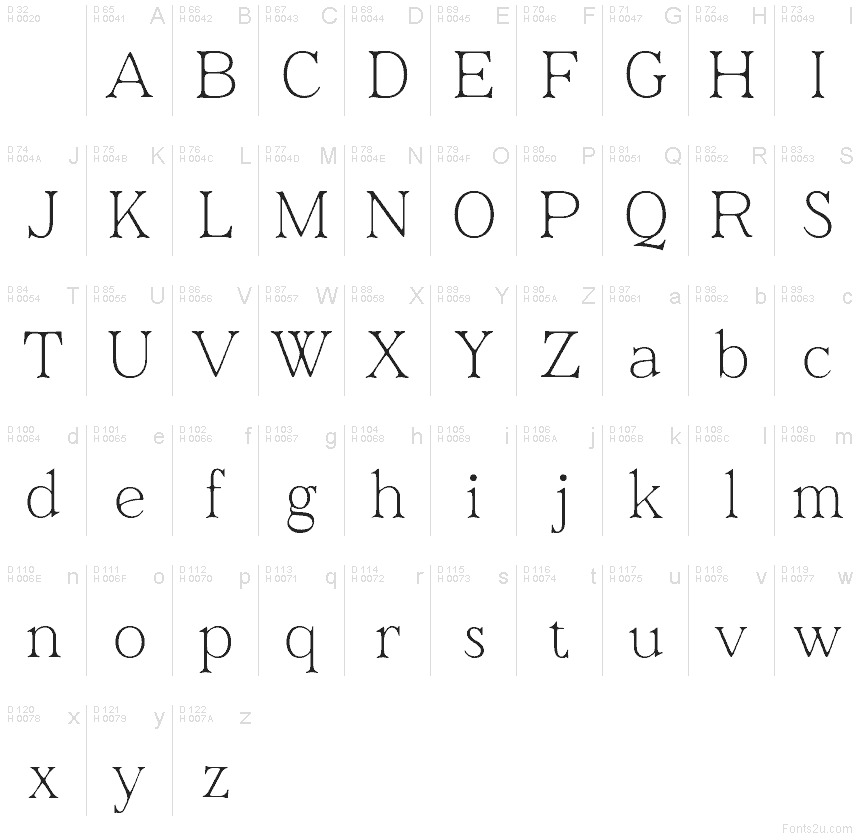
CSRichieDrawn-Regular Demo
CS Richie font by Craft Supply Co. is the ideal choice for mixing refined and classic elegance of serif typefaces with a handrawn, more personal touch. It has a delicate aesthetic that mixes slim strokes and subtle serifs with textured hand drawn lines and circular corners.
Use this free serif font in branding, magazines, invitations cards, books, catalogs or posters. Its delicate aspect also ensures it works perfectly in important documents, restaurant menus or packaging designs that need to stand out effortlessly.